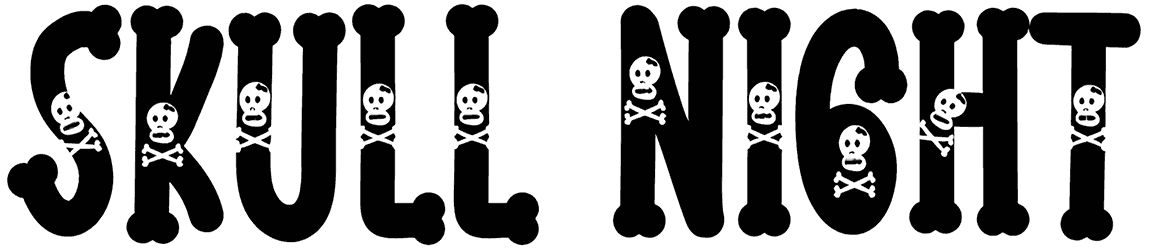
Skull Night Font
Are you looking for a scary Halloween font with a skull and crossbones symbol on each character? Then Skull Night is what you need. It features a frightening, dark, and dangerous feel that can make your blood run cold.
Uppercase letters have a bone shape structure, unlike the rest. You can use this skull font for T-shirt printing, creepy animation posters, badges, book covers, and Halloween concepts.